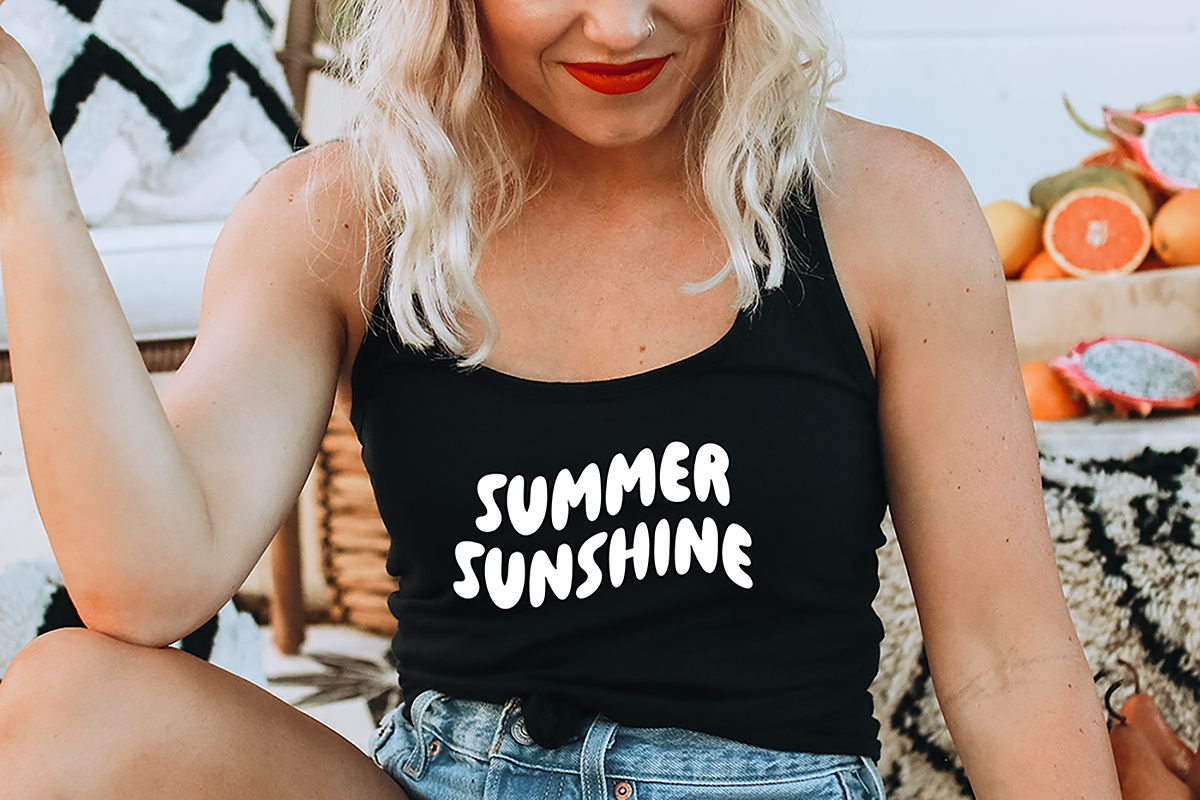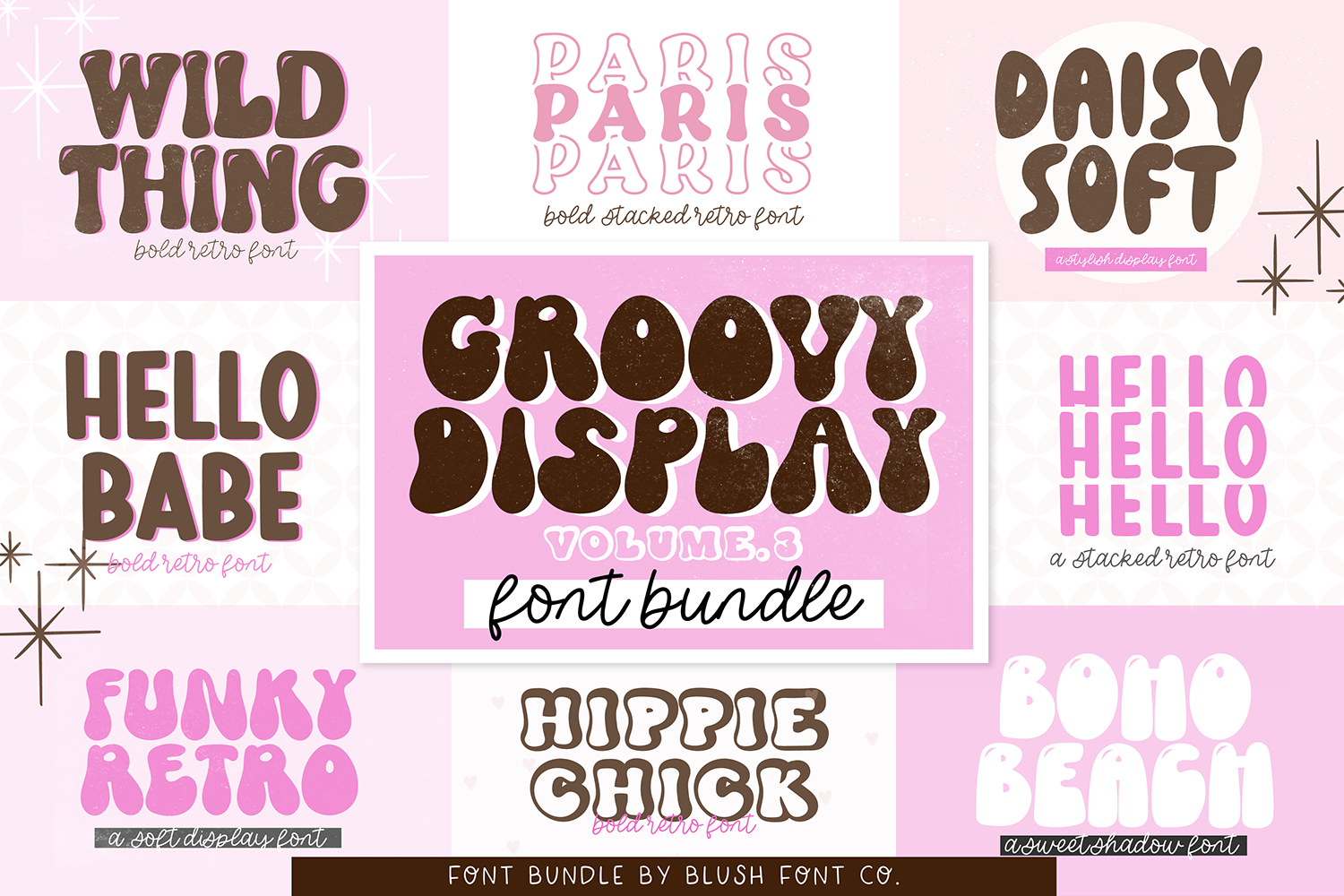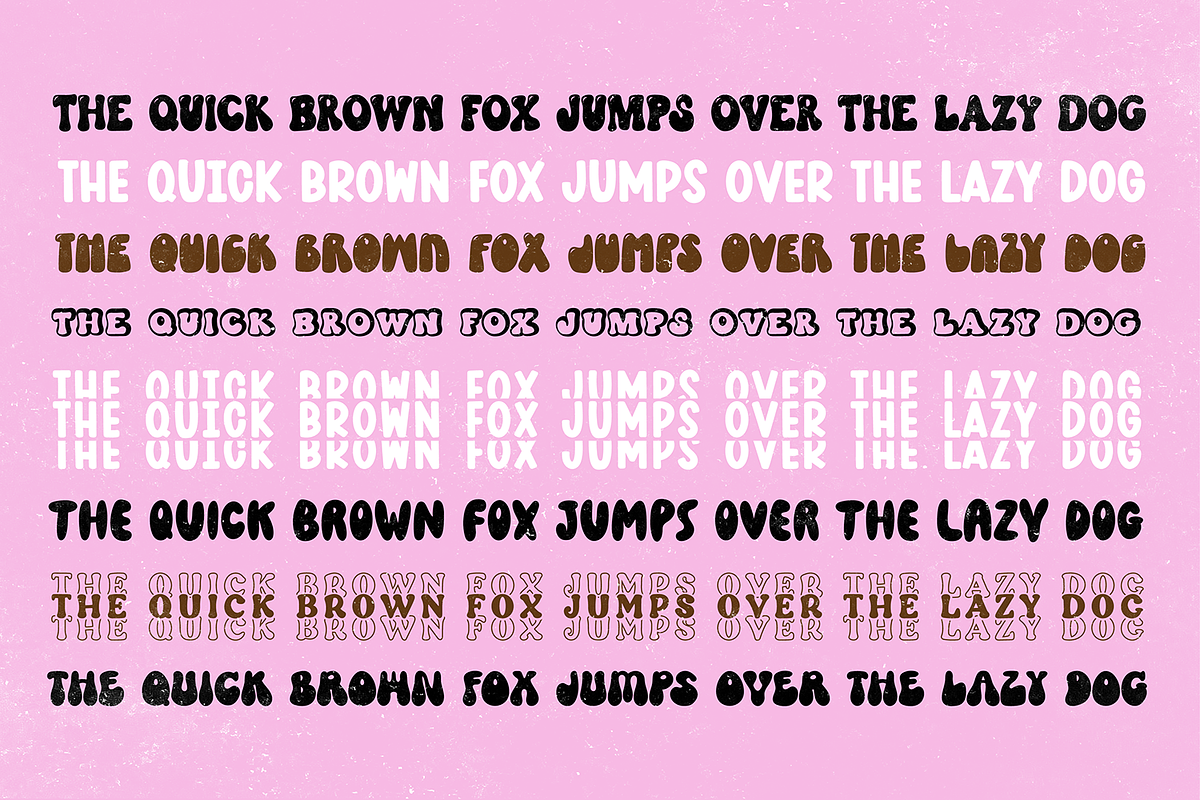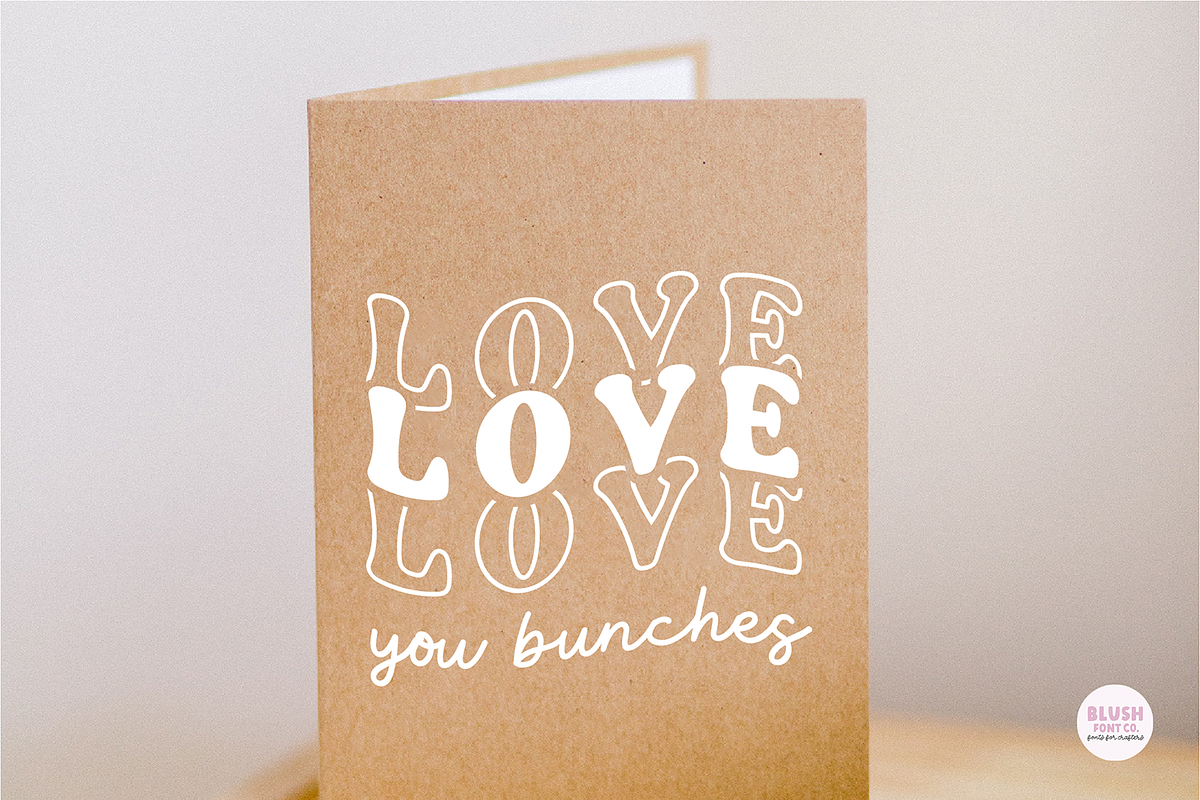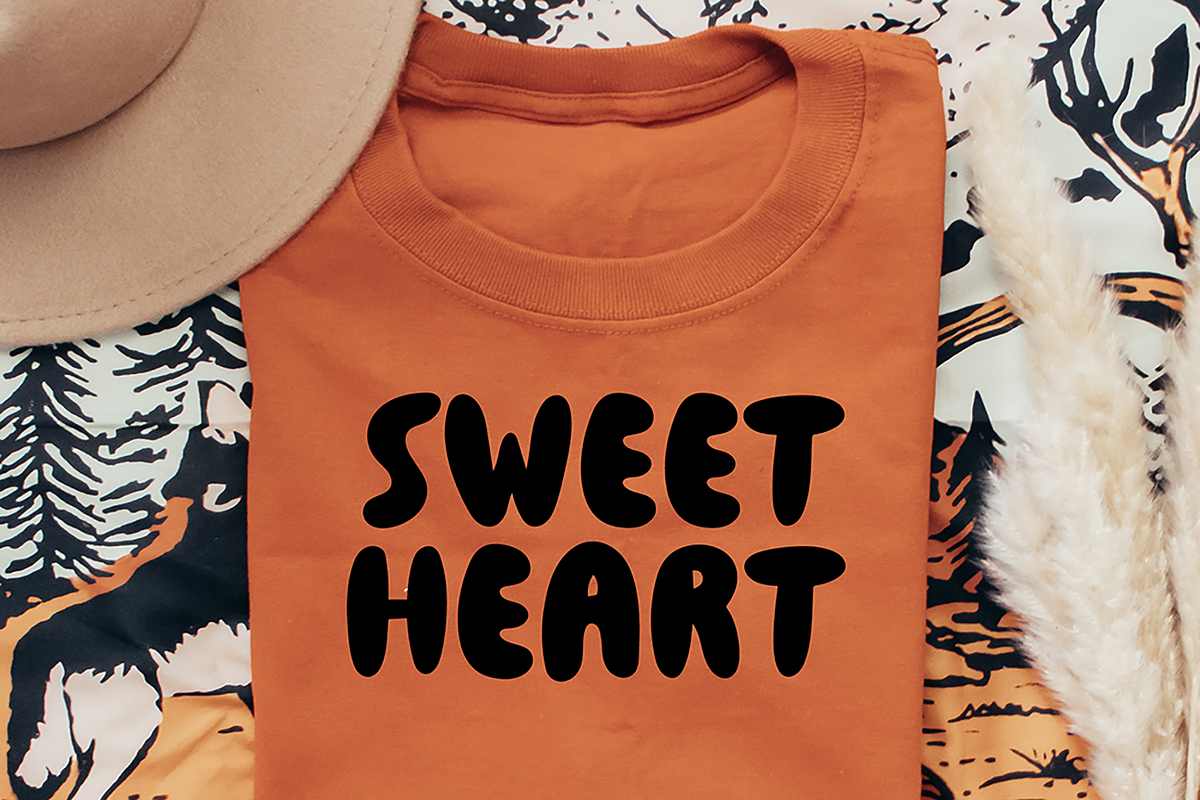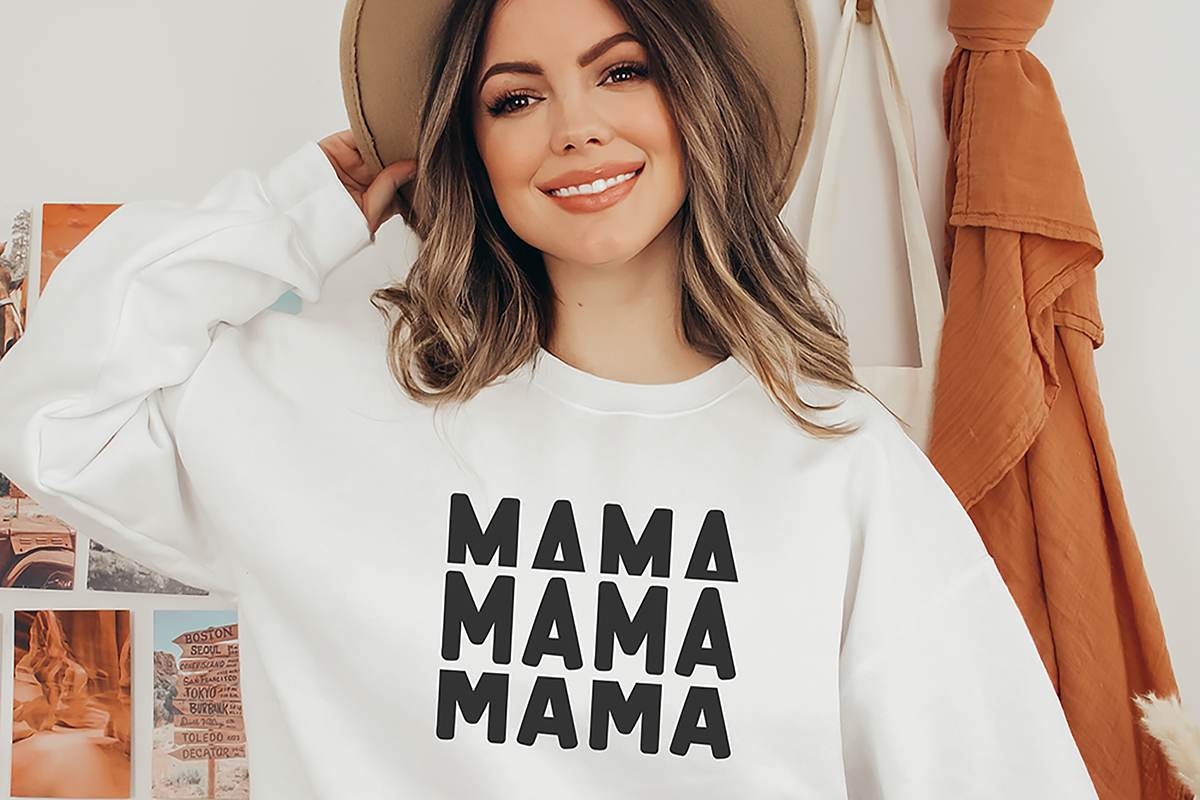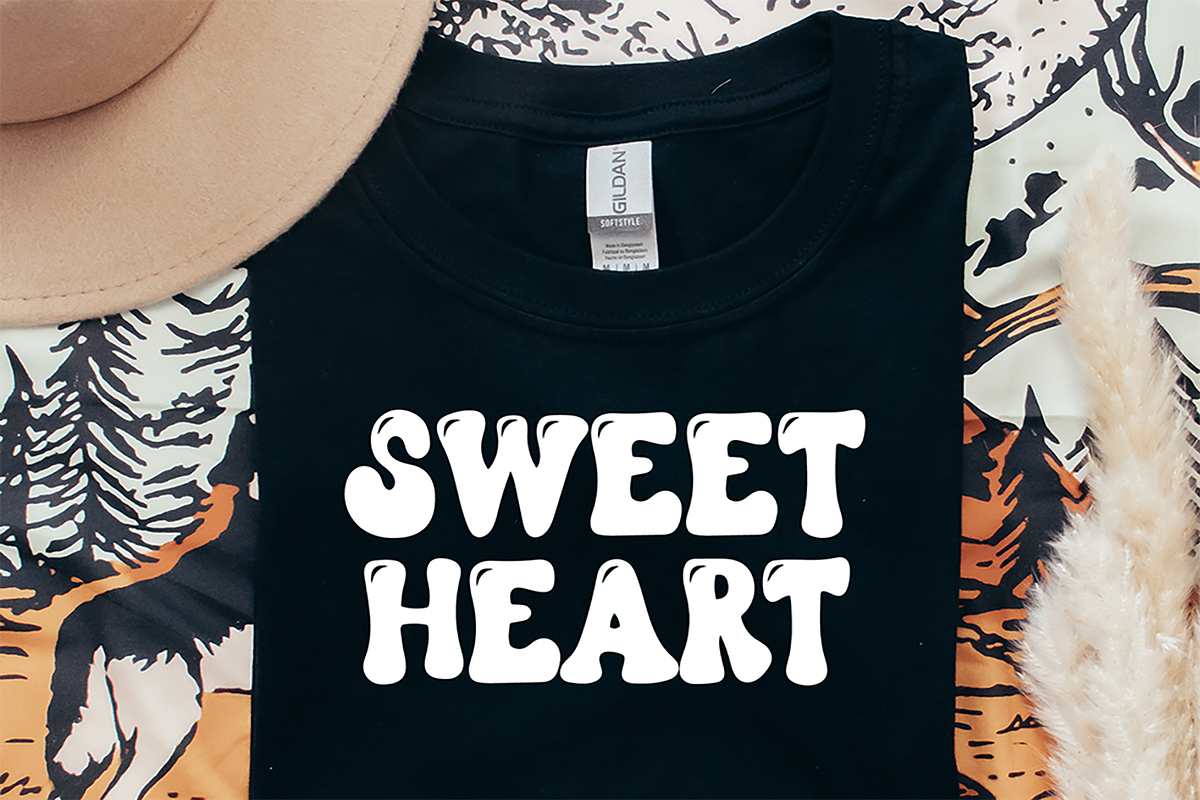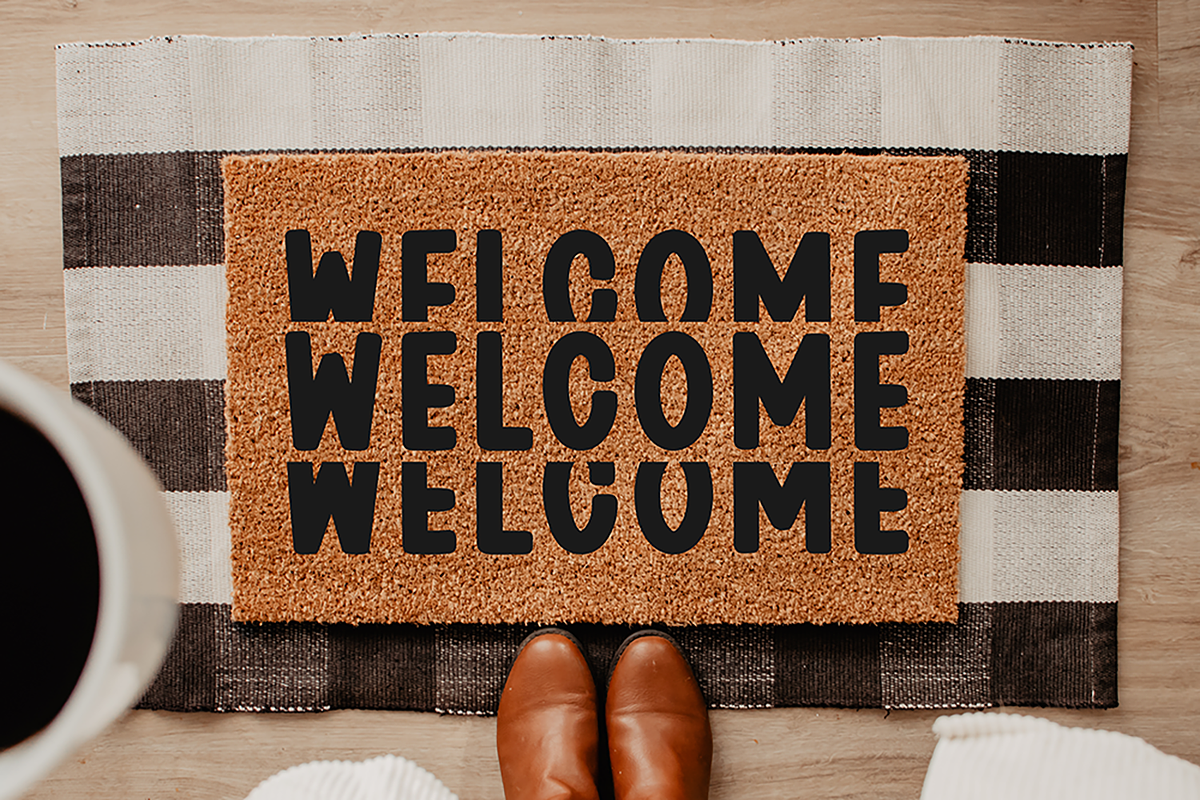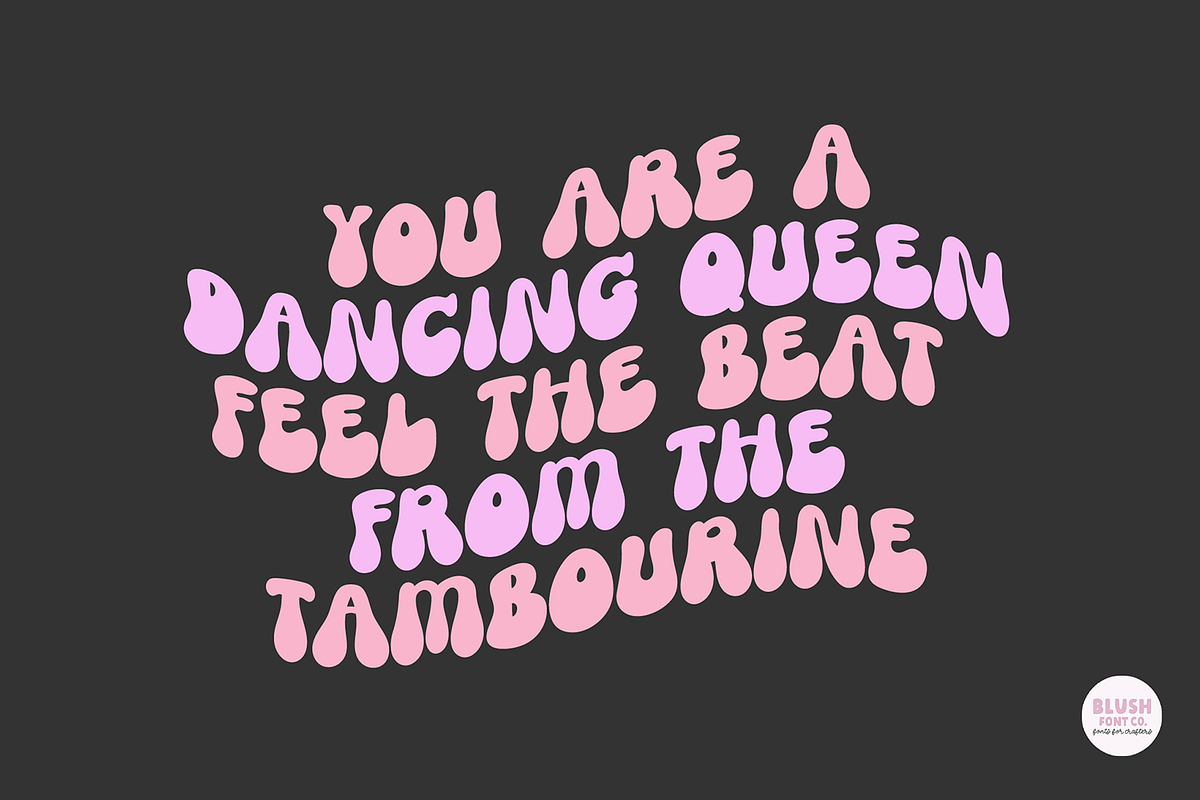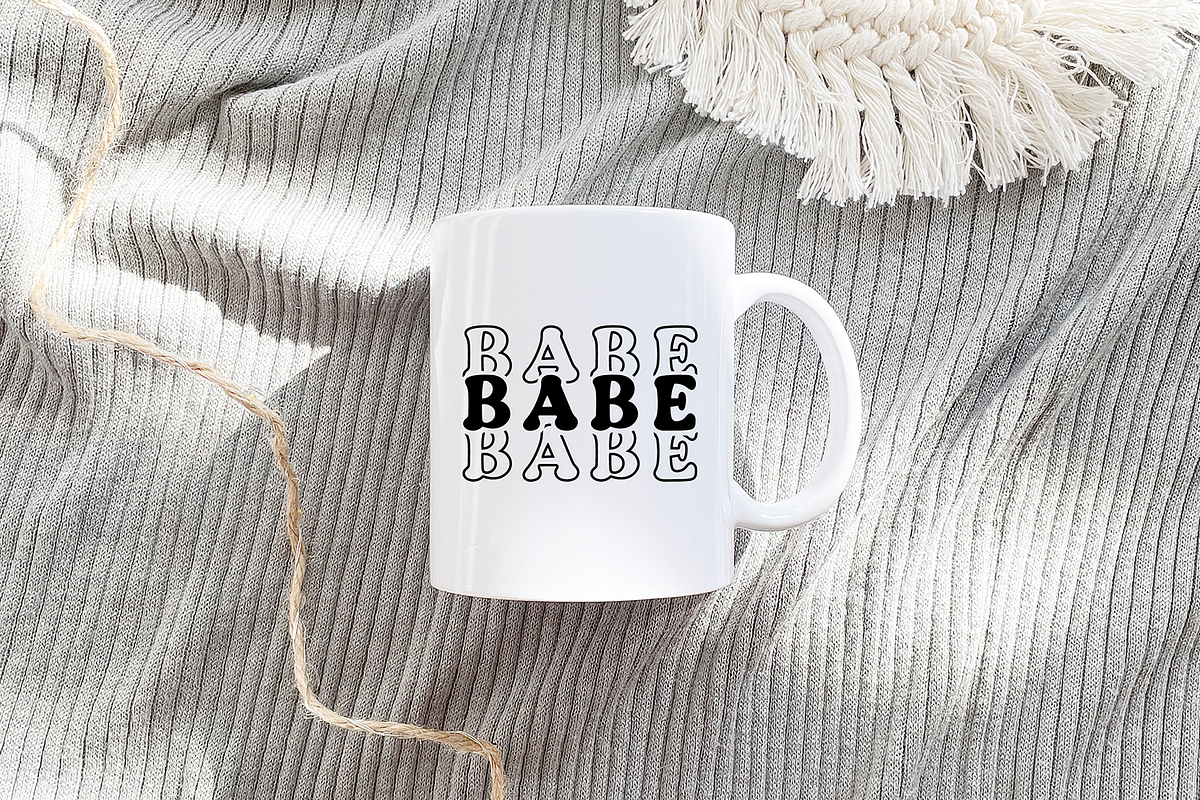
GROOVY DISPLAY FONT BUNDLE V3
Groovy Display Font Bundle VOLUME 3! - Retro Font Bundle
8 fonts included!
-Wild Thing Shine
-Paris Stacked
-Daisy Soft
-Hello Babe
-Hello Solid Stacked
-Funky Retro
-Boho Beach Shine
-Hippie Chick Shadow
This font bundle is full of style! These are perfect for procreate, t-shirt design, birthday parties, procreate, and more!